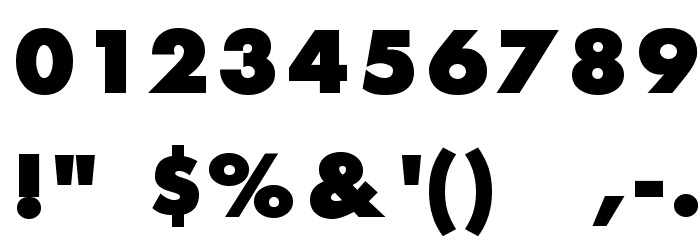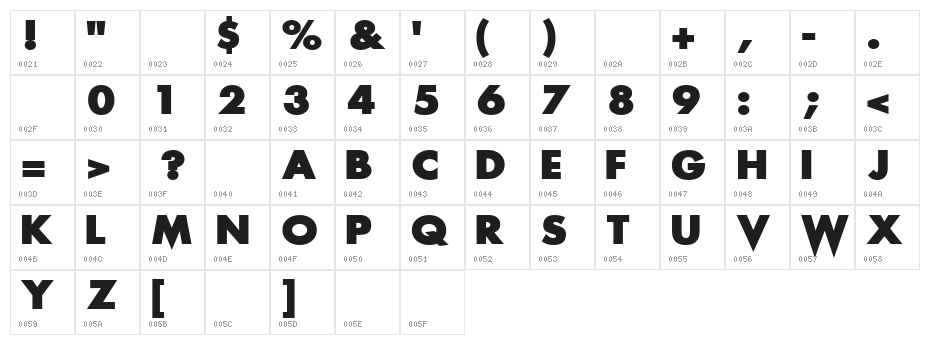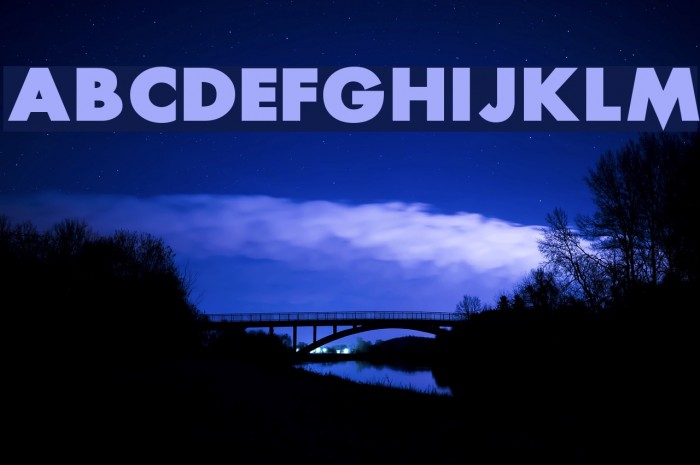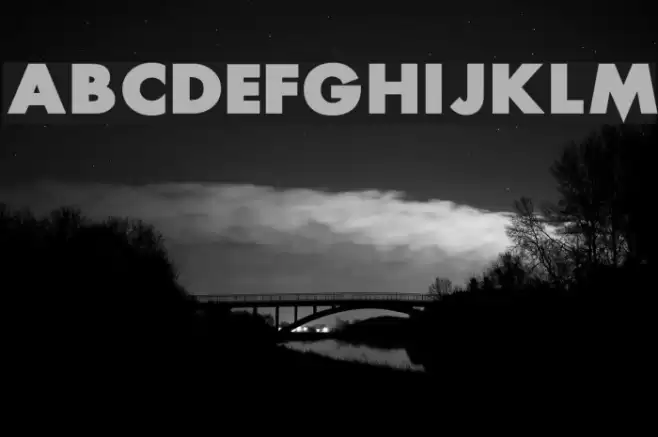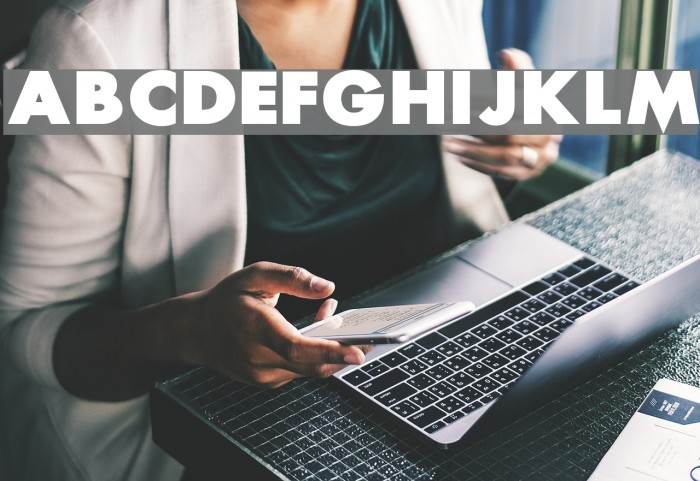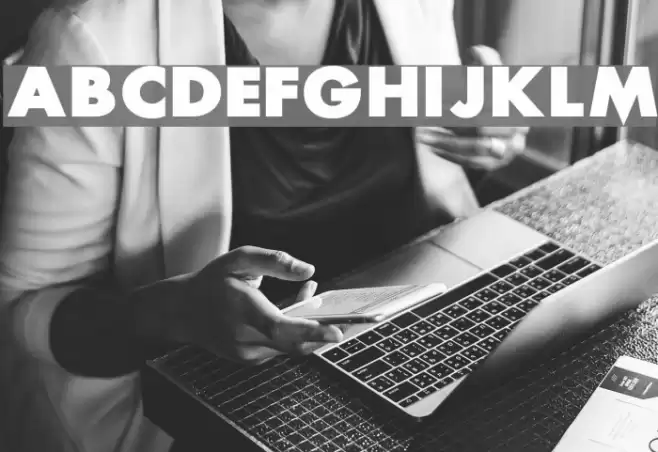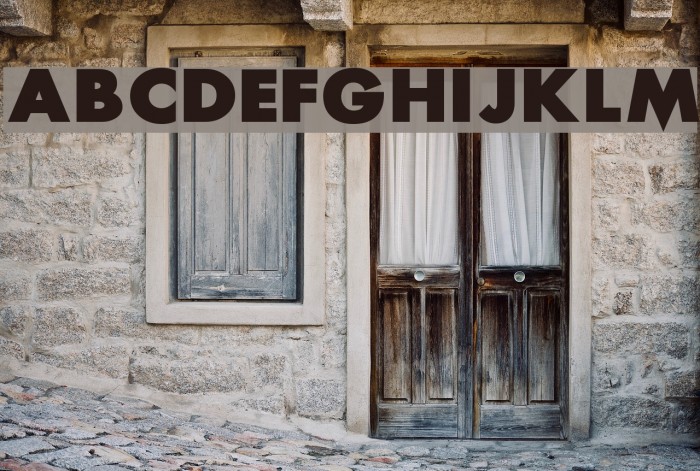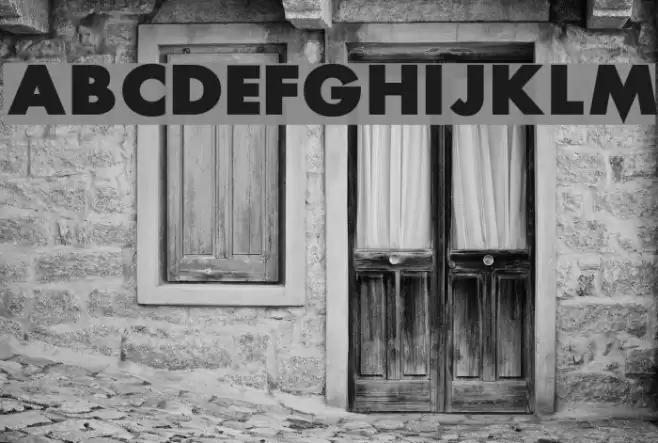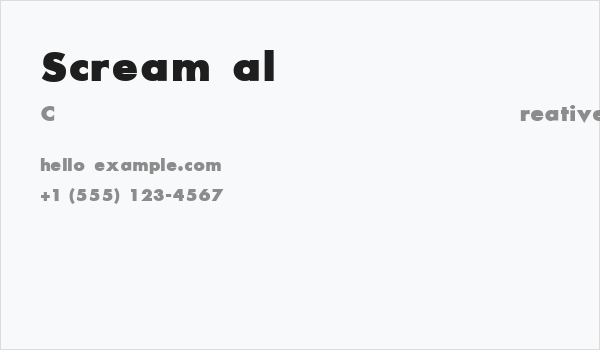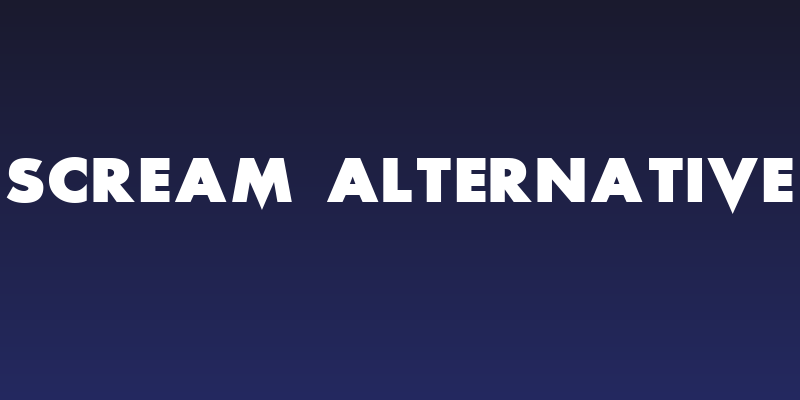
Scream alternative Font
Scream alternative Description
This font features bold, geometric letterforms with a strong presence. The uppercase letters are particularly striking, with a uniform thickness that conveys a sense of stability and modernity. The lowercase letters maintain the same boldness, ensuring consistency across different text sizes. The numerals are clear and easily distinguishable, making them suitable for various applications. Special characters are designed with the same bold style, ensuring they stand out effectively. Overall, the font's clean lines and solid structure make it ideal for impactful headlines and branding.